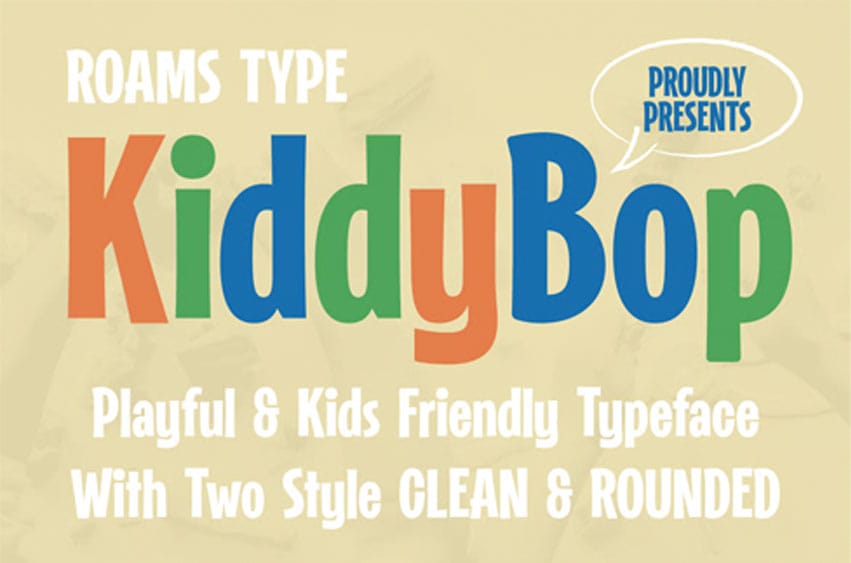
Kiddybop Font is a cheerful and energetic display typeface designed specifically for the world of children. With a bold and friendly structure, this font is highly effective for grabbing attention on school posters, toy branding, and storybook covers.
Available in two styles, Clean and Rounded, Kiddybop offers designers the flexibility to choose between a modern look or a softer, more adorable feel.